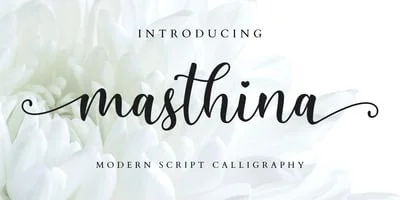
Masthina Font
Masthina Font is ideal for mystical brand identity, spiritual wellness centers, tarot card designs, meditation app interfaces, crystal healing boutiques, astrology websites, yoga studio branding, metaphysical bookstore signage, ethereal music album covers, and any enchanting project that celebrates spiritual awakening and cosmic consciousness.
What makes Masthina Font exciting is its ethereal blend of ancient wisdom and contemporary spirituality that channels the mystical energy of cosmic forces and divine feminine power. This typeface embodies the sacred geometry of universal consciousness with flowing letterforms that seem to dance between earthly reality and celestial realms. The font's mystical character makes it perfect for brands and projects that want to communicate spiritual depth, intuitive wisdom, and connection to higher dimensional awareness.
The Masthina Font family includes multiple weights and mystical variations, featuring light, regular, and bold versions along with ornamental swashes, sacred symbols, and alternate characters inspired by ancient spiritual traditions. This comprehensive collection allows designers to create transcendent typography that maintains the font's signature ethereal character while providing flexibility for various spiritual and metaphysical design applications.
When exploring authentic spiritual typography, Masthina Font offers designers an exceptional opportunity to work with a typeface that genuinely captures the essence of mystical consciousness and spiritual transformation. This font demonstrates innovative design thinking by incorporating sacred geometric principles and flowing energy patterns that reflect the interconnected nature of universal consciousness.
Professional designers value Masthina Font for its ability to instantly evoke spiritual connection and mystical awareness across various media platforms. The font's transcendent character makes it particularly effective for wellness brands, spiritual coaches, and metaphysical businesses seeking to establish authentic connections with audiences exploring consciousness expansion and spiritual growth.
The timeless appeal of Masthina Font lies in its perfect representation of eternal wisdom and spiritual awakening that transcends cultural boundaries and religious traditions. This typeface serves as a powerful tool for brands wanting to communicate the universal language of love, light, and cosmic consciousness in an increasingly spiritually awakened world.
For creative professionals working with spiritual and wellness brands, Masthina Font represents the ultimate typography solution that brings authentic mystical energy and celestial beauty to any application, ensuring designs reflect the sacred wisdom and divine connection that define true spiritual transformation.